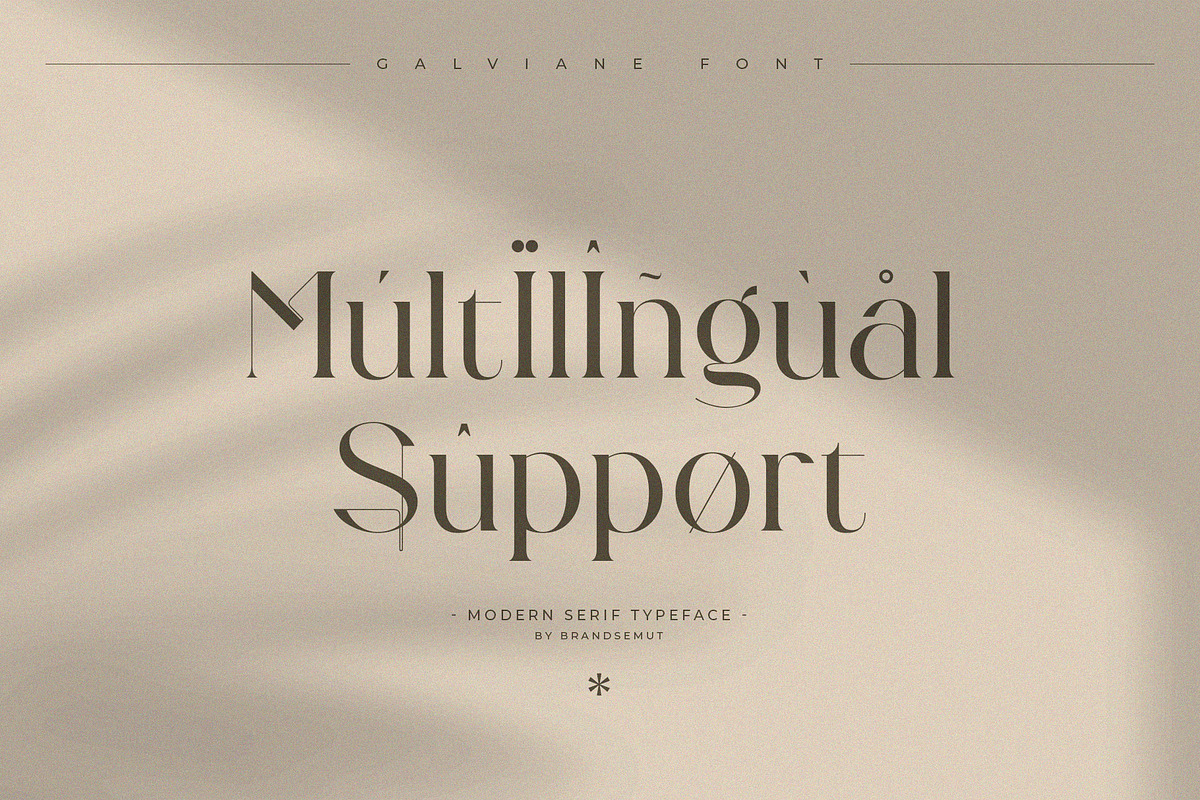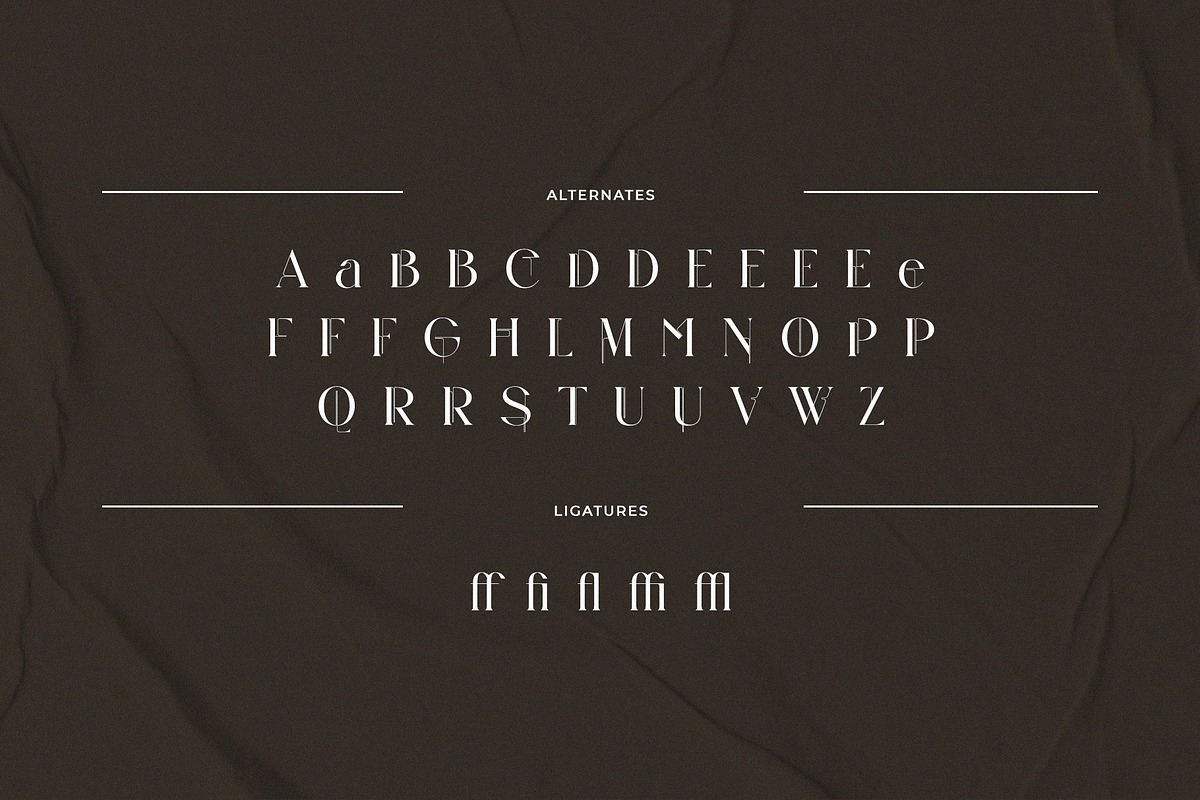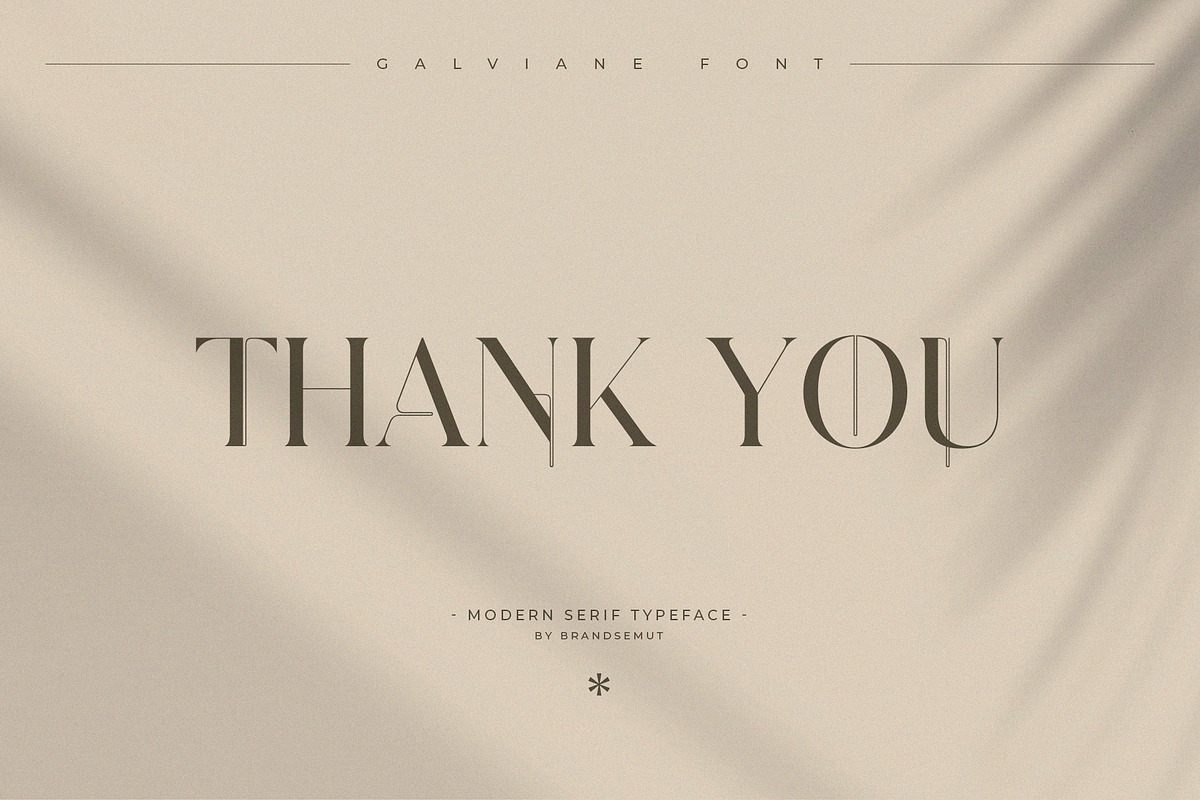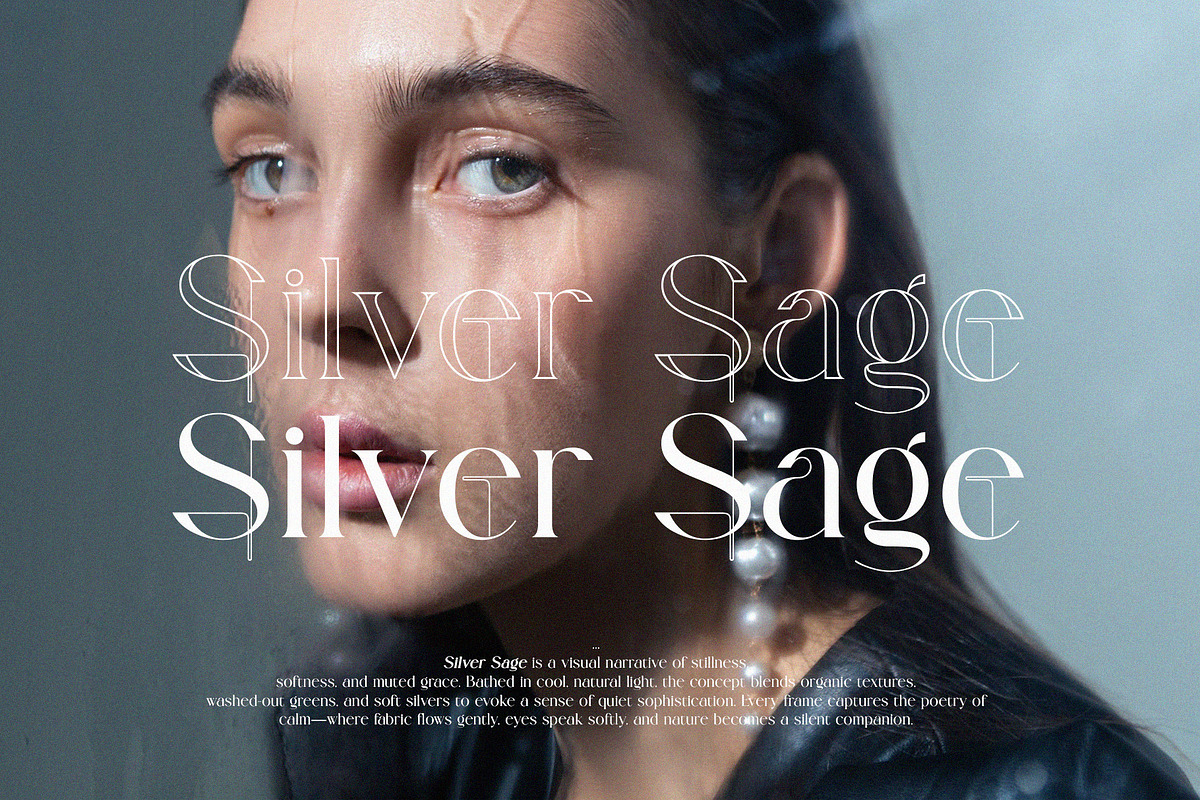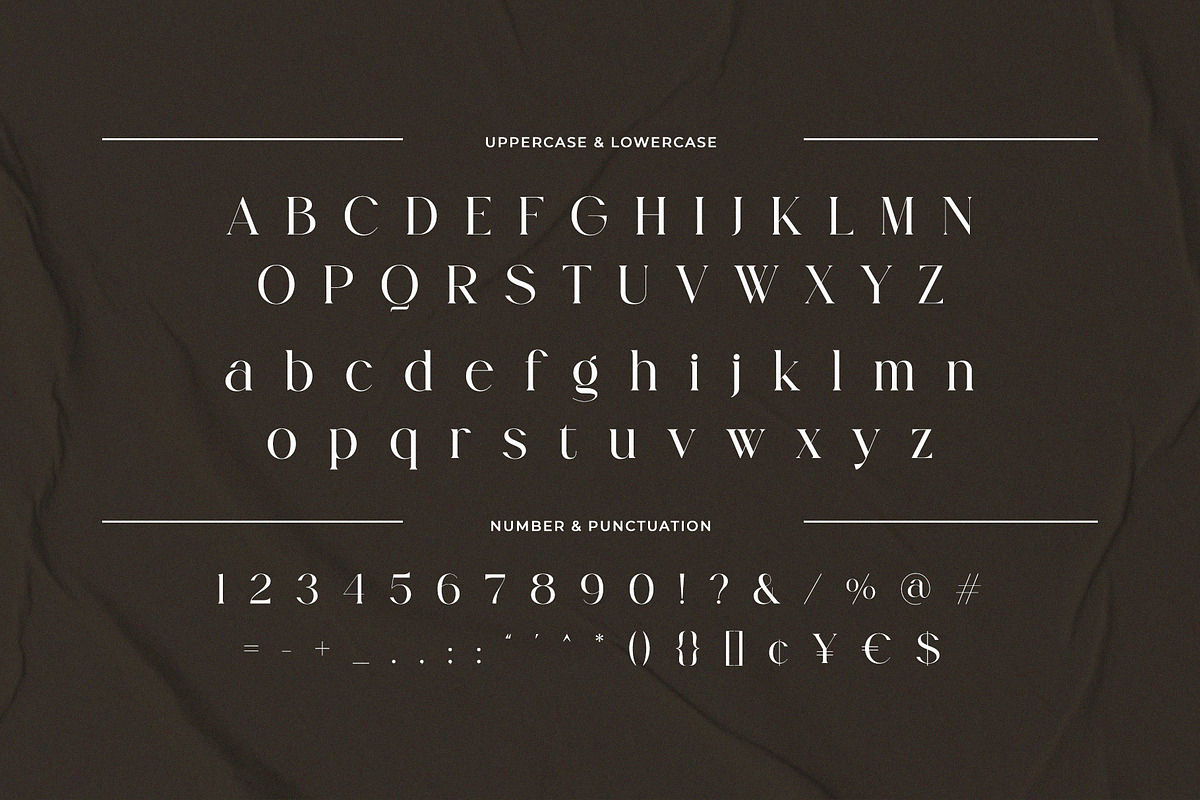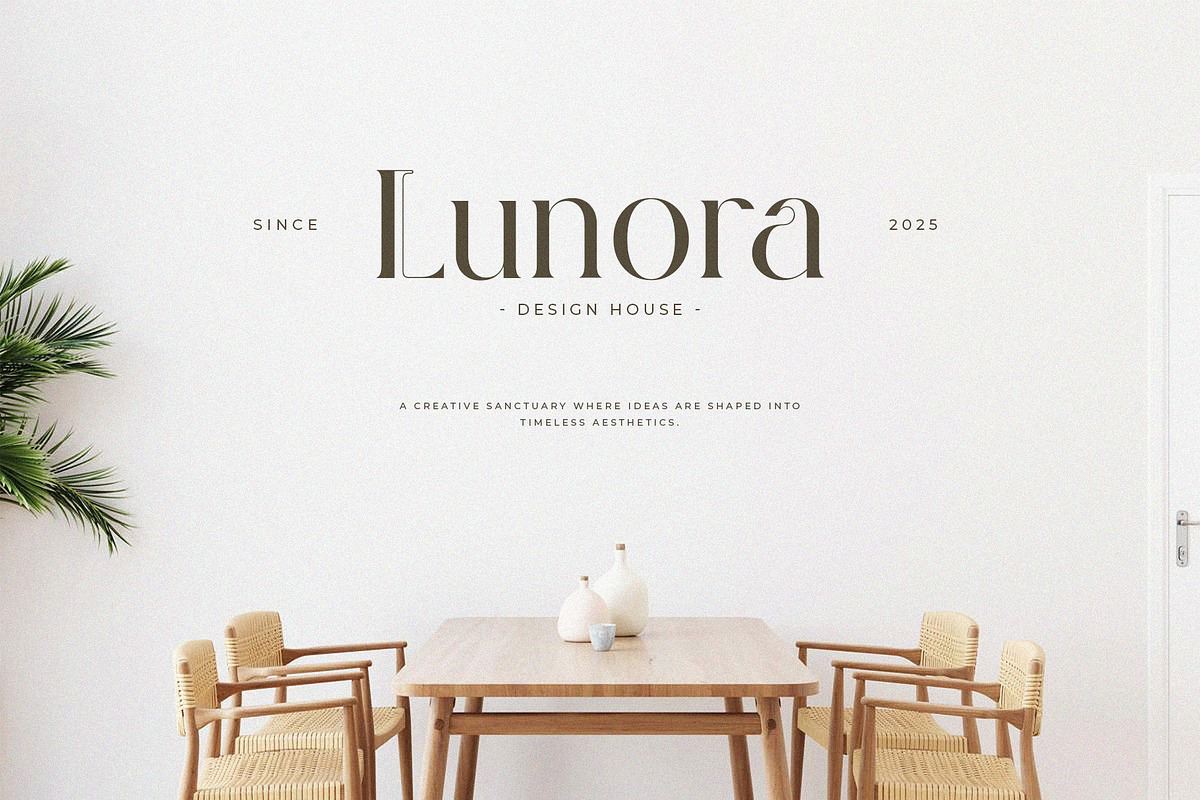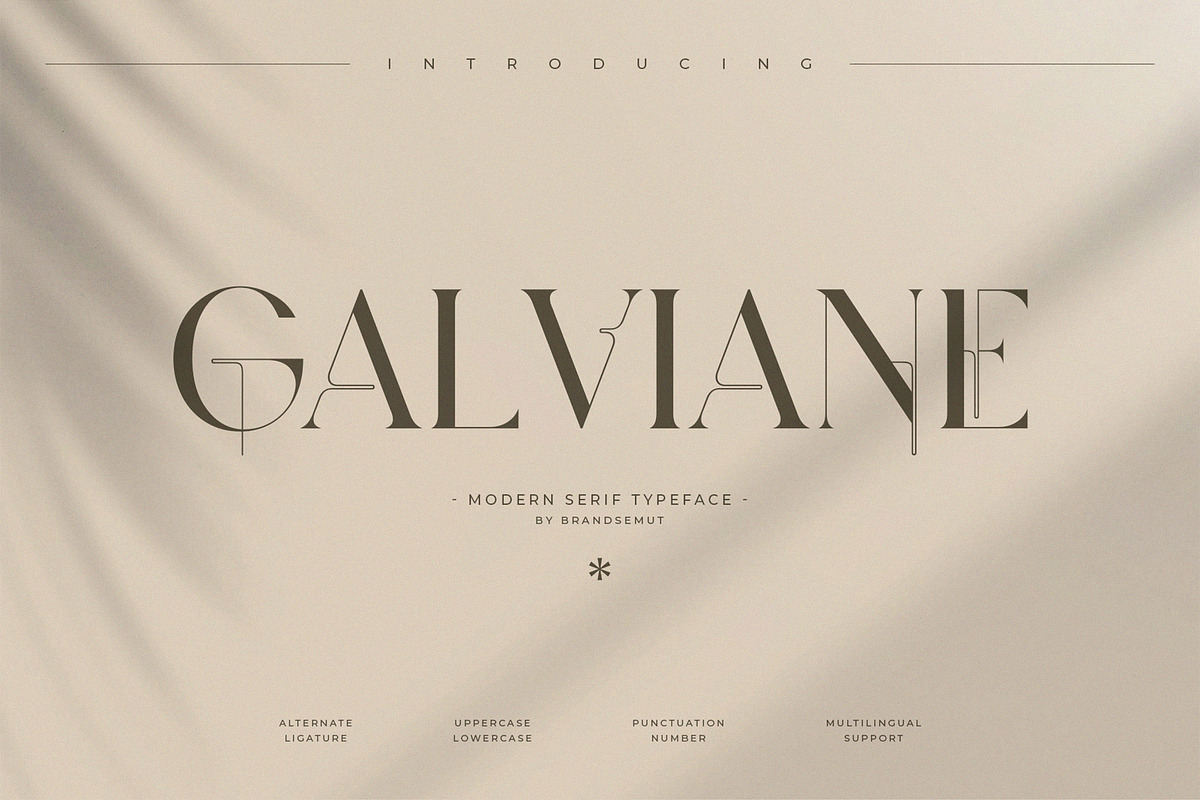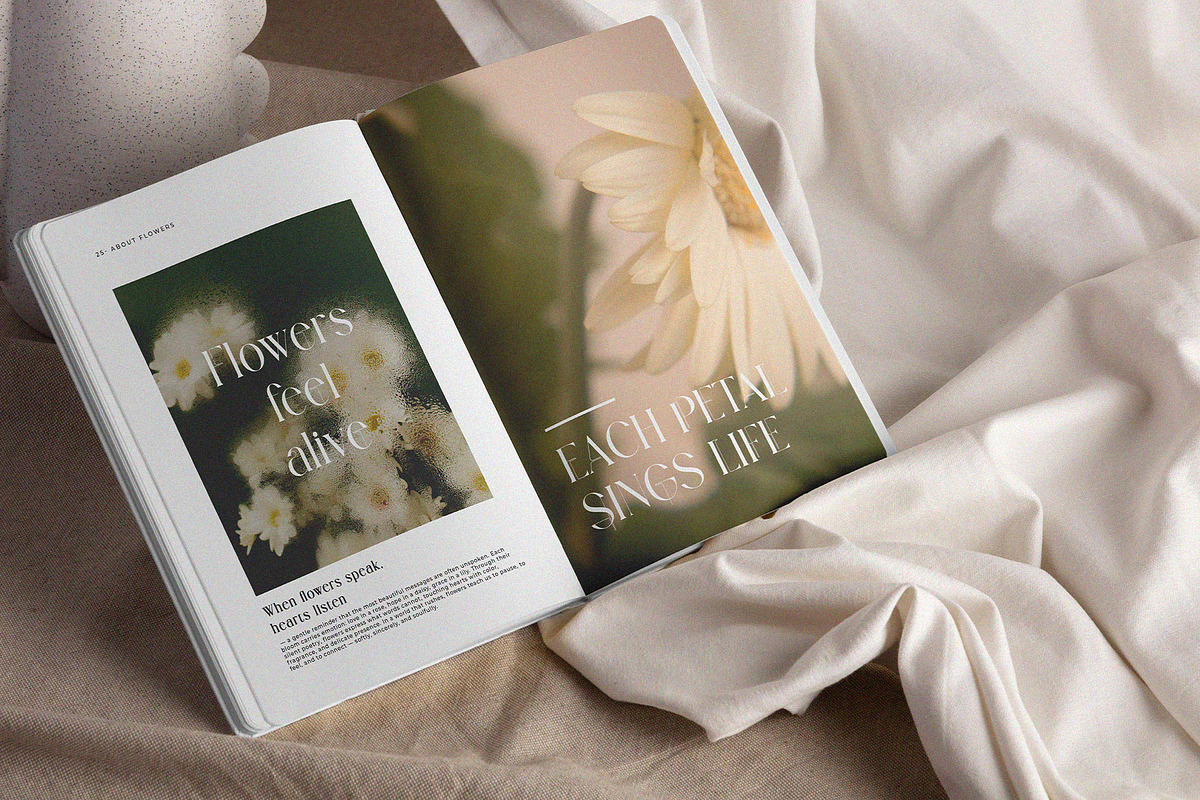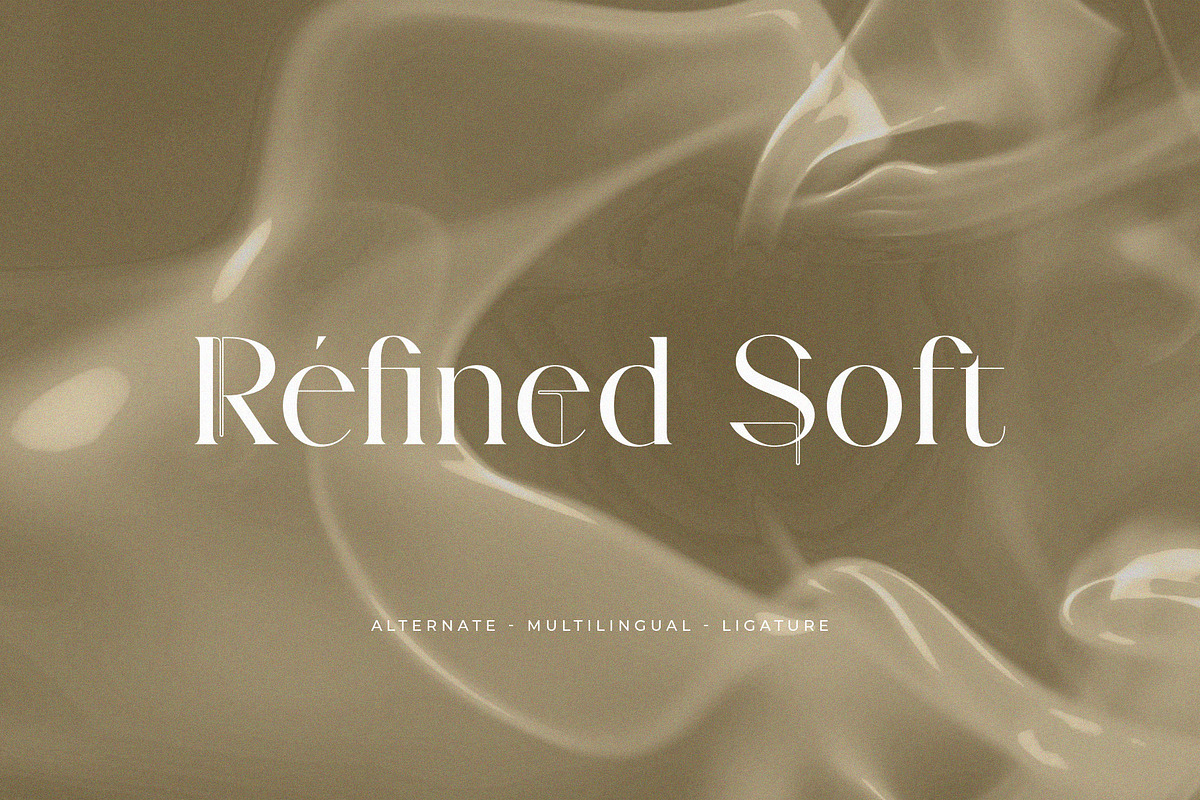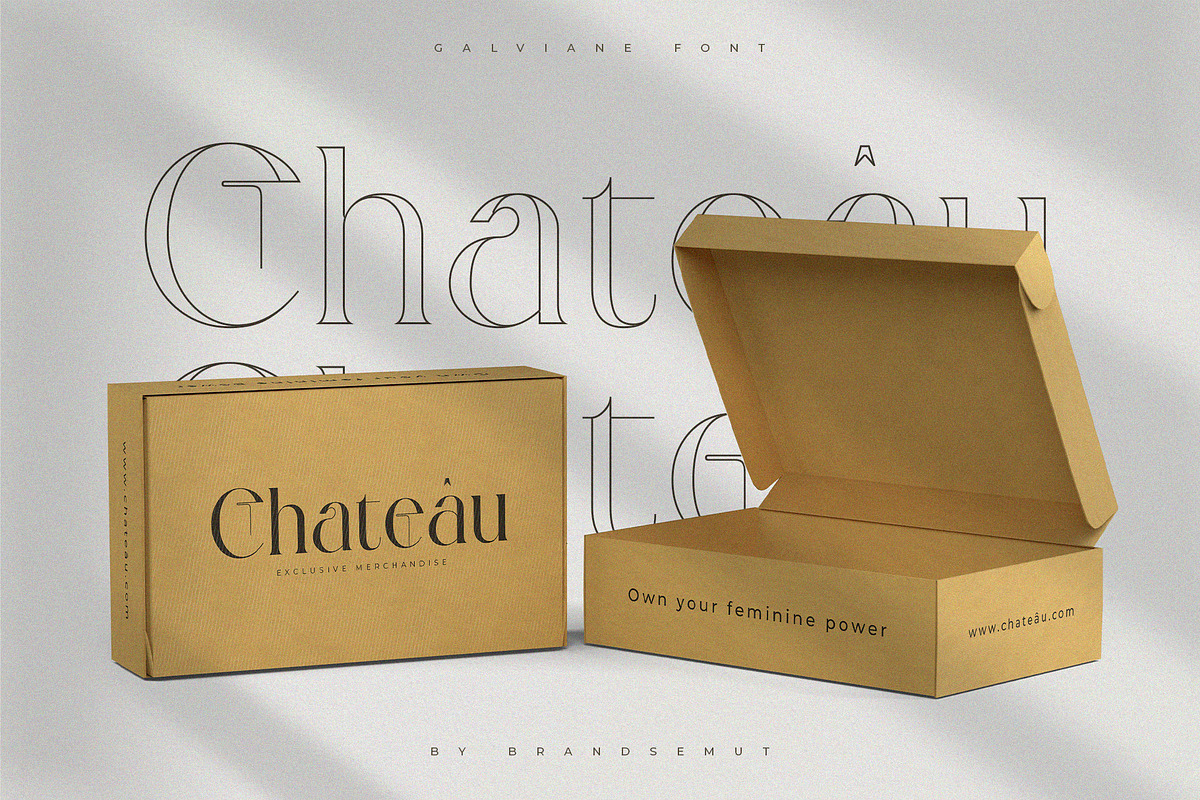
Galviane – Artistic Modern Serif
Galviane – Artistic Modern Serif Font with Uppercase & Lowercase, Alternates & Ligatures for Editorial & Luxury Branding
Galviane is a high-fashion modern serif typeface that blends elegant structure with creative expression. Featuring full uppercase and lowercase characters, along with sophisticated alternates and ligatures, Galviane is perfect for bold editorial design, stylish branding, and high-end print layouts.
Its expressive curves, clean serifs, and artistic form make Galviane a distinctive choice for creatives seeking to add character, luxury, and modern elegance to their typography.
Ideal For:
- Fashion & lifestyle branding
- Magazine headlines & editorial spreads
- Artistic logo design
- Wedding stationery & minimalist packaging
- Instagram quotes & content creation
- Uppercase & lowercase characters
- Alternate glyphs & stylish ligatures
- Elegant, high-contrast serif construction
- Punctuation, numbers, and multilingual support
- Perfect for both print and digital use
Bring sophistication and creative flair to your projects with Galviane — a modern serif that turns every letter into a statement.